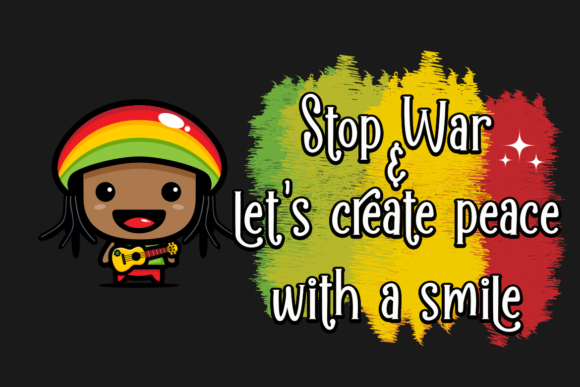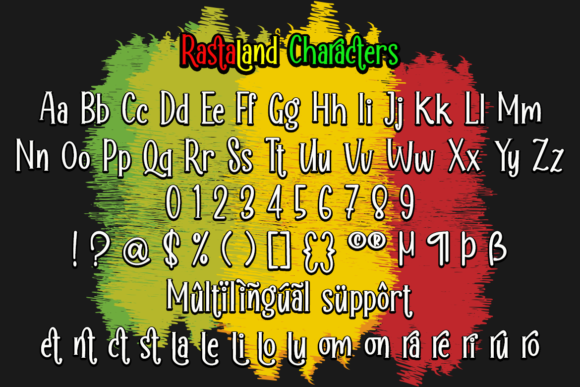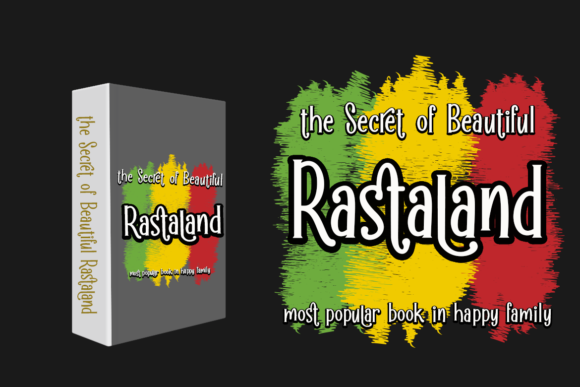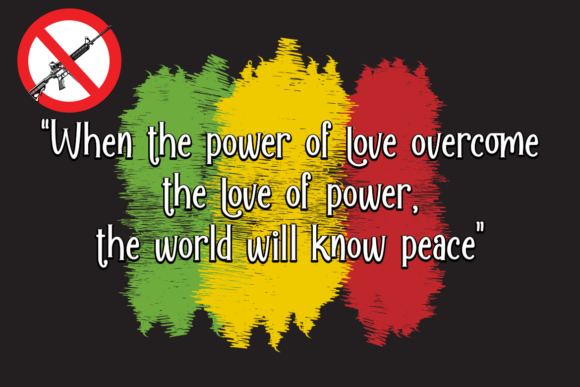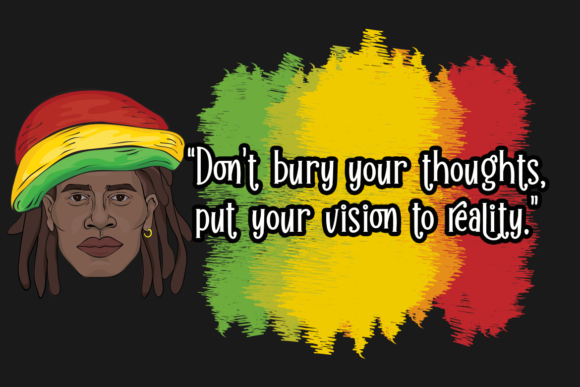
Introduction to Rastaland Font
Have you ever been working on a creative project, pouring your heart and soul into it, only to find the perfect font eluding you? That’s where the magic of Rastaland Font comes in. This enchanting display font is the ultimate game-changer for designers looking to add a touch of whimsy and personality to their work.
With its natural and unique style, Rastaland Font is the perfect addition to any design project. Whether you’re working on a free download or a high-end commercial design, this font is sure to bring a smile to your client’s face. And the best part? Its transparent background makes it incredibly versatile, allowing you to layer it with ease.
As a valuable design resource, Rastaland Font is a must-have for any creative professional. Its high quality and unique style make it a standout in a crowded design landscape. So why settle for ordinary when you can have extraordinary? Discover the world of Rastaland Font and unlock your full design potential.
Key Features of Rastaland Font
- Unique, bold, and colorful font perfect for making a statement
- Supports a wide range of languages and characters
Honest Review: Rastaland Font
As a designer, I’m always on the lookout for high-quality design resources to elevate my creative projects. Recently, I stumbled upon the Rastaland Font, and I’m excited to share my honest review with you.
What works well: ✨ The Rastaland Font is incredibly versatile and can be used for a wide range of design applications, from logos to web design. The font’s unique style and high-quality design make it a great addition to any creative project. The font is also available for free download, which is a definite bonus.
- ✨ Suitable for various design projects, including logos, web design, and more
Overall, I’m impressed with the Rastaland Font’s potential and versatility. While it may have some limitations, it’s definitely a valuable design resource to have in your toolkit. Whether you’re working on a small design project or a large-scale creative endeavor, the Rastaland Font is definitely worth considering.
Tips for Getting the Most Out of Rastaland Font
Experiment with different font sizes and combinations to create visually striking designs. Use the font in conjunction with other design resources to add depth and interest to your project.
The Rastaland Font is ideal for creative projects, including logos, business cards, and social media graphics. Its unique characteristics make it a valuable design resource for professionals and hobbyists alike.
Alternatives to Rastaland Font
Futura Font
Futura Font is a high-quality sans-serif font suitable for various creative projects, including logos, posters, and digital displays. Its clean design and transparent background make it an excellent choice for designers looking for a modern aesthetic. When to use: Futura Font is ideal for projects requiring a sleek, minimalist look.
Comparison to Rastaland Font: While Rastaland Font has a unique, distressed look, Futura Font offers a more refined, geometric appearance. Futura Font is a better choice for projects requiring a high level of professionalism.
Great Vibes Font is a free download, high-quality script font perfect for creative projects, such as wedding invitations, quotes, and social media graphics. Its elegant, handwritten style adds a touch of sophistication to any design. When to use: Great Vibes Font is ideal for projects requiring a personal, emotive touch.
Comparison to Rastaland Font: Great Vibes Font has a more refined, elegant look compared to Rastaland Font’s distressed appearance. Great Vibes Font is a better choice for projects requiring a high level of emotional connection.